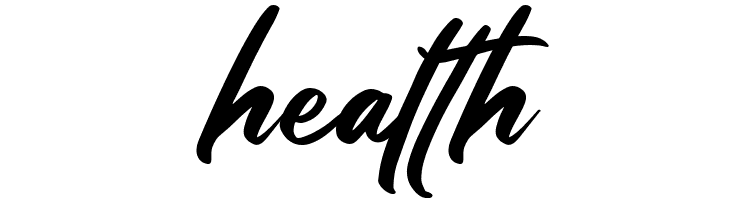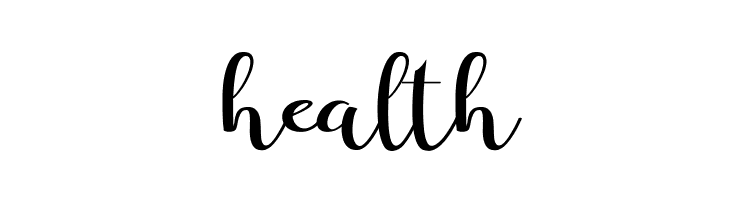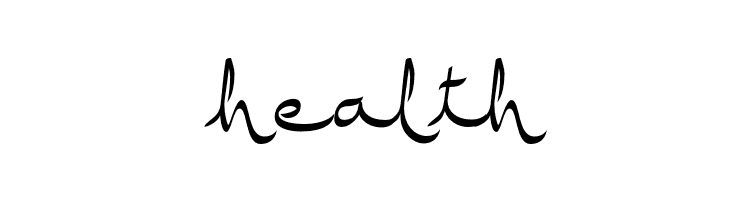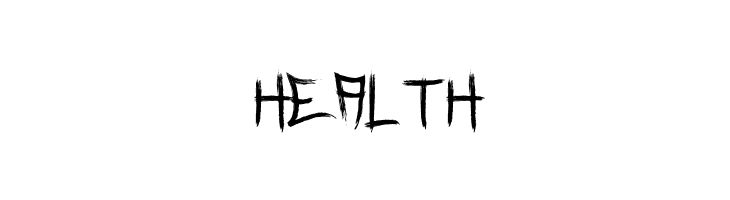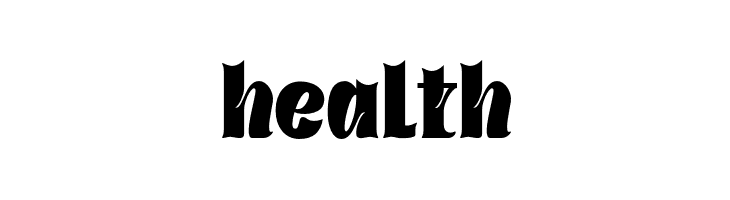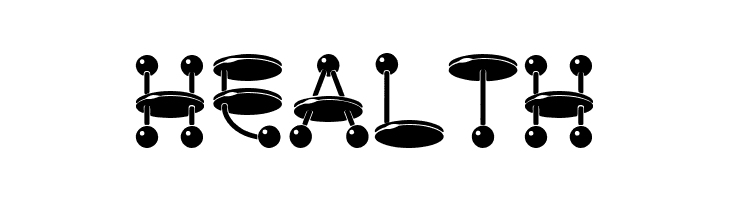
A bold, cursive script font with a dynamic and fluid style.
A bold, distressed font with a hand-drawn, brush-like texture.
A bold, grunge-style font with sharp, distressed characters.
A bold, expressive script font with fluid, interconnected strokes and decorative flourishes.
A dynamic handwritten font with fluid strokes and a natural flow.
A bold, expressive font with thick strokes and a playful style.
A playful, futuristic font with bold, rounded shapes and whimsical accents.
A playful and elegant script font with flowing, cursive letters.
A flowing, cursive script font with elegant, interconnected characters.
A fluid, cursive font with elegant, connected characters.